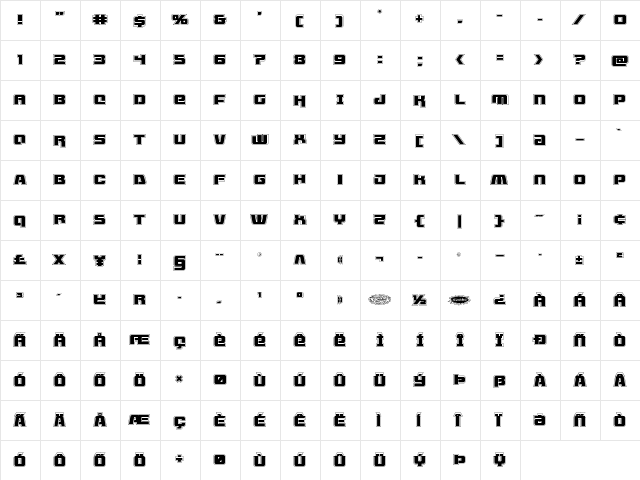
Livewired Academy Regular
Design Context for Livewired Academy Typeface
Livewired Academy is a composed and adaptable typeface that performs quietly and consistently across a wide range of design contexts.